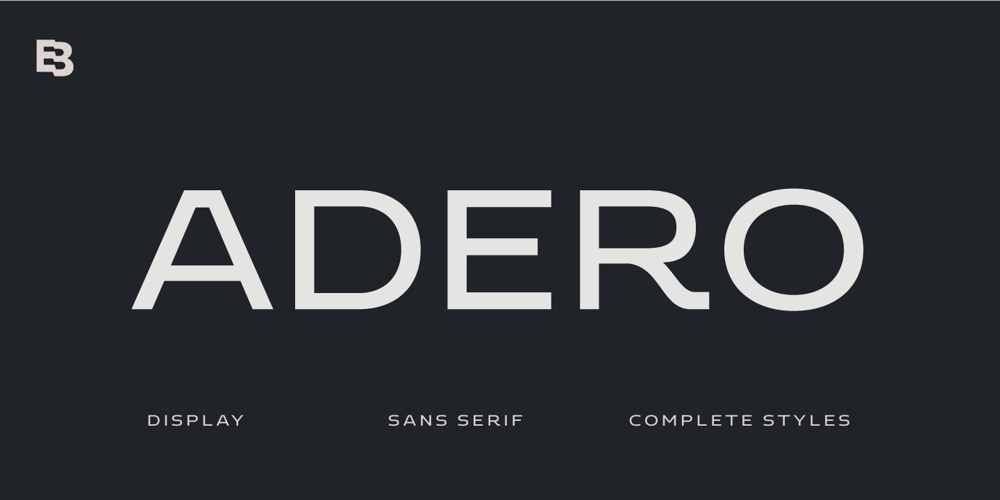
Adero Font Family was designed by Eko Bimantara and published by Eko Bimantara. Adero contains 18 styles and family package options. Adero is a futuristic and versatile display font family designed to meet the needs of modern design projects. With its wide and minimalist style, Adero offers designers a unique blend of futuristic and functional design elements that make it a perfect choice for a wide range of applications.Featuring nine weights, from Thin to Black, and matching obliques, Adero provides designers with a wide range of options to choose from when creating designs. The font’s letterforms are carefully crafted with attention to detail, resulting in a modern, clean look that is both attractive and easy to read.Adero’s minimalist design makes it ideal for a variety of design applications, including branding and logo design, product design, advertising, web and various digital design. The font’s wide proportions and large x-height make it a great choice for bold and attention-grabbing designs, while its sleek and functional style makes it perfect for more understated design applications.Whether you’re creating a futuristic poster or a sleek website design, Adero is a versatile and powerful tool that can help you achieve your design goals. With its unique blend of wide proportions, minimalist design, and futuristic style, Adero is an excellent choice for any modern design project.